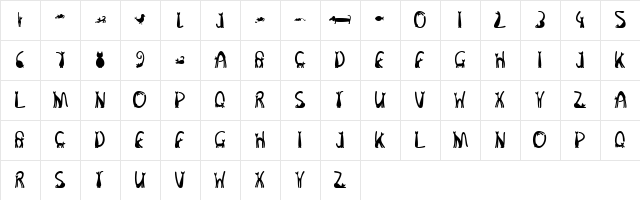
Malinka Regular
Design Context for Malinka Typeface
Malinka is a composed and adaptable typeface that performs quietly and consistently across a wide range of design contexts.